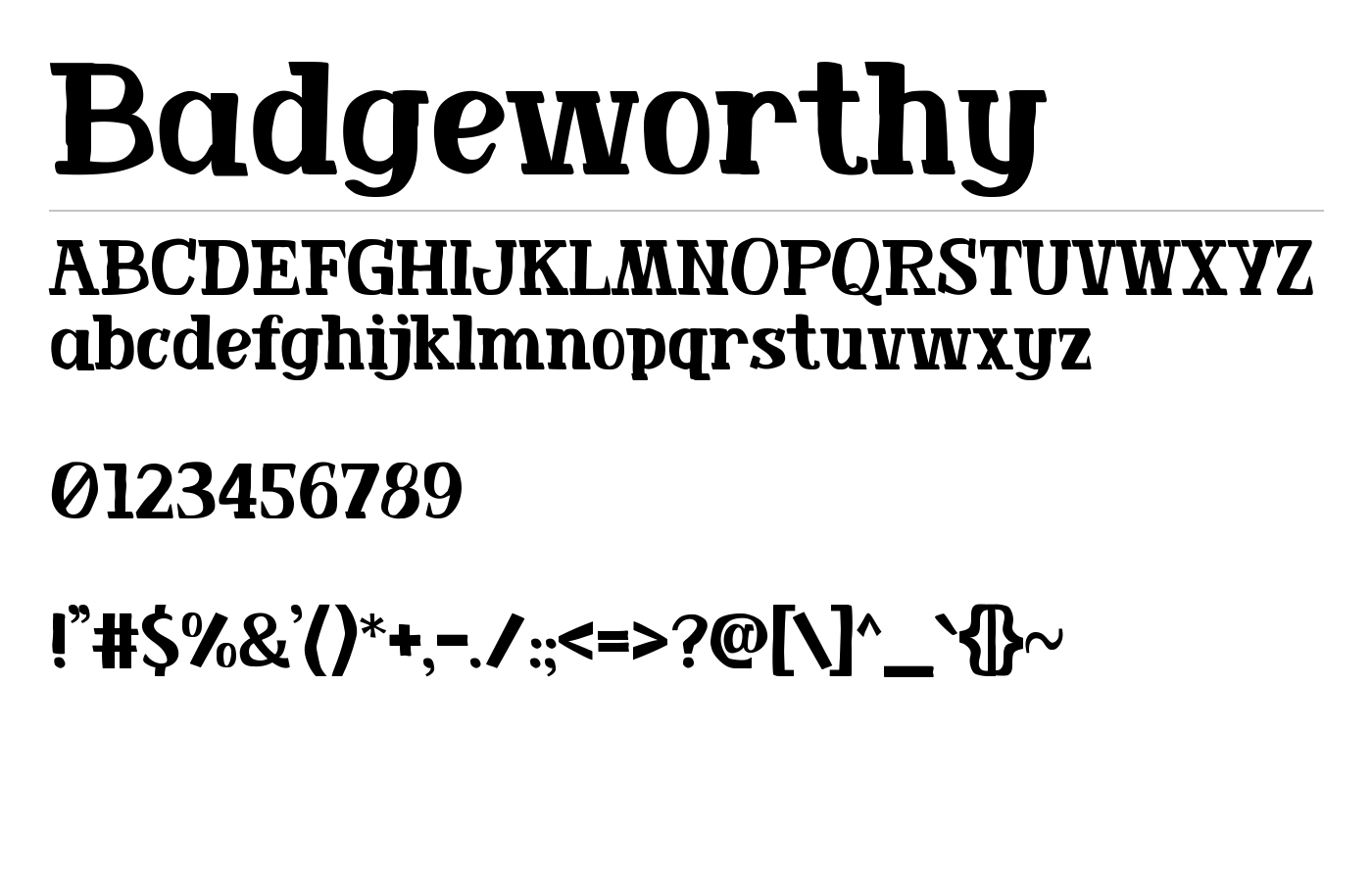
Badgeworthy is a distinctive serif font with a sturdy, slightly condensed structure and a medium-high contrast between thick and thin strokes. Its quirky, vintage-inspired letterforms feature bracketed serifs and a mix of sharp and rounded edges, giving the font a friendly yet confident personality. Ideal for branding, logos, and editorial headlines, Badgeworthy brings a retro charm that suits playful yet professional designs.
Badgeworthy Font
About Badgeworthy Font
| Font family | Badgeworthy Font |
| Designer | TOKOPRESS Team |